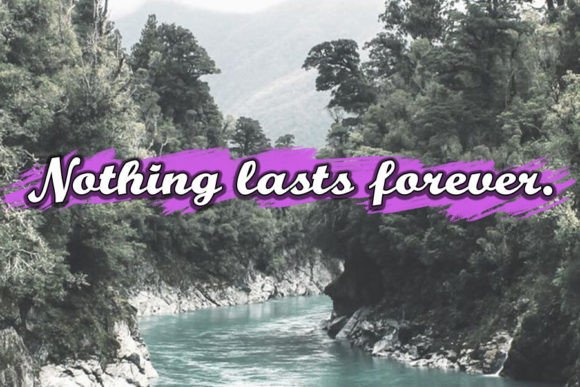
Augusly Font: Adding a Personal Touch to Your Designs
The world of typography is vast and diverse, with numerous fonts available to cater to various design needs. Among these, the Augusly font stands out for its unique, hand-written style lettering that brings a cozy, welcoming feel to designs. In this article, we’ll delve into the features, uses, and benefits of the Augusly font, exploring how it can elevate your creative projects.
What is Augusly Font?
Augusly is a beautifully crafted font that embodies a personal touch, making it perfect for designs that require a human and approachable feel. Its hand-written style lettering is characterized by subtle imperfections and a flowing script that mimics the natural movement of handwriting. This distinctive feature sets Augusly apart from more traditional fonts, offering a refreshing alternative for designers looking to add warmth and personality to their work.
Key Features of Augusly Font
- Hand-written style lettering: Augusly’s unique, hand-written style gives it a personal and cozy feel, ideal for creating inviting designs.
- Personal touch: The font’s subtle imperfections and flowing script bring a human touch to designs, making them more relatable and engaging.
- Versatility: Augusly is suitable for a wide range of design applications, from invitations and greeting cards to branding and digital content.
- Easy to read: Despite its hand-written style, Augusly is remarkably legible, ensuring that your message is conveyed clearly and effectively.
Uses of Augusly Font
Augusly’s versatility makes it an excellent choice for various design projects. Here are some of the most popular uses of this charming font:
Design Applications
- Invitations: Augusly is perfect for creating warm and inviting invitations for weddings, parties, and other special occasions.
- Greeting cards: The font’s personal touch makes it ideal for designing greeting cards that convey a sense of care and thoughtfulness.
- Branding: Augusly can add a unique and memorable touch to brand identities, helping businesses stand out in a crowded market.
- Digital content: The font is also suitable for digital content, such as blog posts, social media graphics, and email newsletters.
Benefits of Using Augusly Font
Augusly offers several benefits that make it an attractive choice for designers. Some of the key advantages include:
Why Choose Augusly?
- Unique and distinctive: Augusly’s hand-written style lettering sets it apart from more traditional fonts, allowing designers to create unique and memorable designs.
- Emotional connection: The font’s personal touch helps create an emotional connection with the audience, making designs more relatable and engaging.
- Time-saving: Augusly’s legibility and versatility save designers time and effort, as it can be used for a wide range of applications.
- High-quality: The font is crafted with attention to detail, ensuring a high-quality finish that reflects well on the designer and their clients.
Tips for Using Augusly Font Effectively
To get the most out of Augusly, consider the following tips:
Best Practices
- Use it sparingly: Augusly’s impact is greatest when used sparingly. Consider using it for headings or key messages, and a more traditional font for body text.
- Pair it wisely: Augusly pairs well with clean, sans-serif fonts. Experiment with different combinations to find the perfect match for your design.
- Adjust letter spacing: To enhance legibility, adjust the letter spacing to ensure that words flow smoothly.
- Experiment with colors: Augusly looks great in a range of colors. Experiment with different hues to find the perfect shade for your design.
Augusly font is a unique and versatile typeface that adds a personal touch to designs. Its hand-written style lettering and cozy feel make it perfect for creating inviting designs that resonate with audiences. With its wide range of applications, from invitations and greeting cards to branding and digital content, Augusly is an excellent choice for designers looking to add warmth and personality to their work. By following best practices and experimenting with different design approaches, you can unlock the full potential of Augusly and take your designs to the next level.